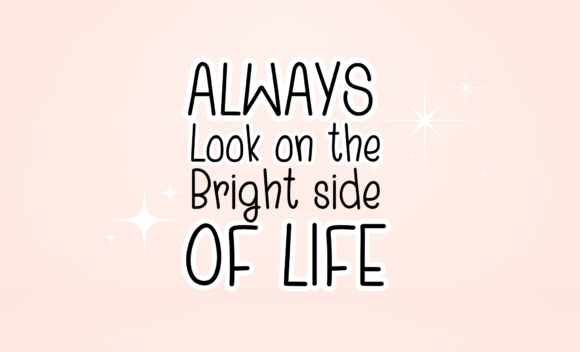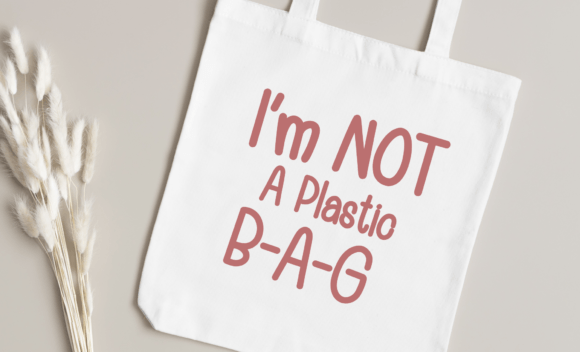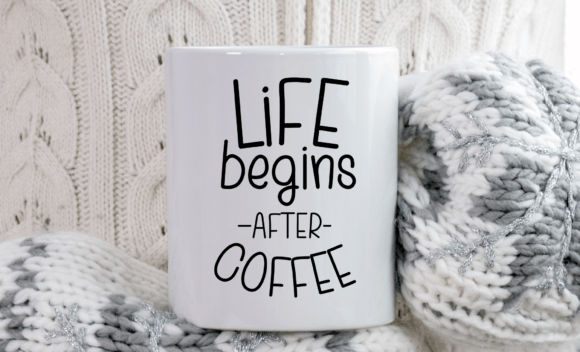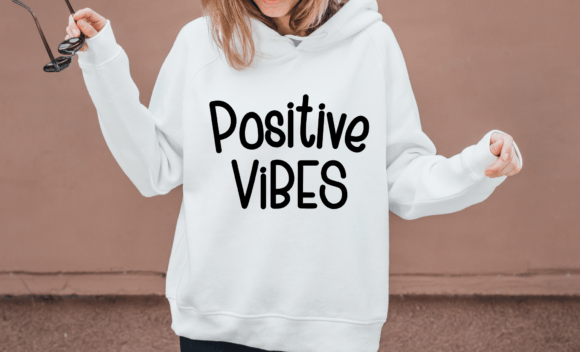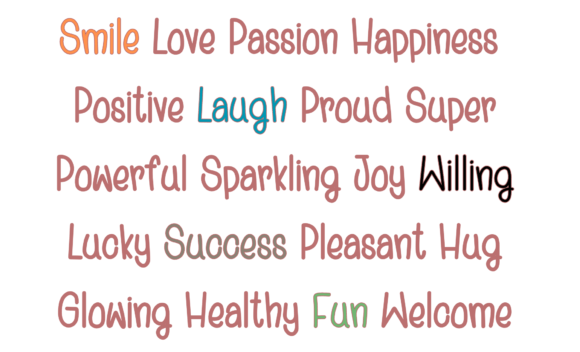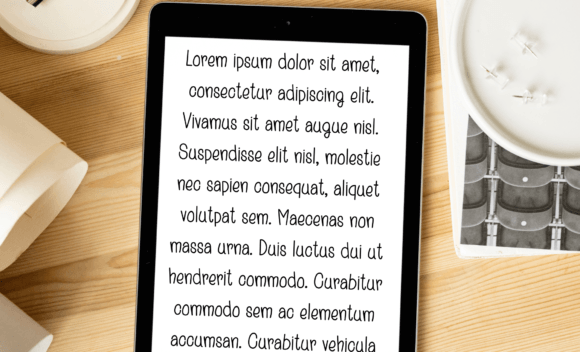
The Enchant Font: A Playful and Versatile Handwritten Delight
Ah, the elusive perfect font. You know, that one that makes your design project go from meh to mesmerizing. I recall working on a project for a children’s event, and I was determined to find a font that would capture the whimsical and playful essence of the brand. After hours of scrolling through font libraries, I stumbled upon Enchant – a handwritten font that instantly stole my heart. Its cute, playful, neat, and clean design made it an instant winner for my project, and I’m excited to share its charm with you.
An Honest Review of Enchant Font
What I Love About Enchant ✨
- ✅ Cute and Playful Design: Enchant’s handwritten style is perfect for designs that require a personal touch, making it ideal for digital prints, social media posts, and planners.
- ✅ Neat and Clean: Despite being handwritten, Enchant maintains a surprising level of legibility, even at smaller font sizes.
- ✅ Versatile: This font is suitable for a wide range of projects, from casual Instagram posts to more formal presentations.
- ✅ Easy to Read: The font’s clarity makes it perfect for body text, especially in digital formats.
- ⚠️ Limited Formality: Enchant’s playful nature might not be suitable for very formal or corporate designs.
- ⚠️ Glyph Limitations: While Enchant has a good range of characters, it might not support all special characters or languages.
The Backstory of Enchant Font
Enchant was created with the intention of capturing the whimsy and playfulness of handwritten text, while maintaining a level of neatness and legibility. The designer aimed to create a font that could be used in a variety of contexts, from digital media to print, and cater to designers, crafters, and hobbyists looking for that perfect, friendly touch.
| Font Name | Enchant Font |
| Author | LalavaStudio |
| Is Enchant suitable for body text? | Yes, Enchant is surprisingly legible and can be used for body text, especially in digital formats. |
| Does Enchant support OpenType features? | Yes, Enchant supports OpenType features, allowing for advanced typographic styling. |
| Is Enchant available in different weights or styles? | Enchant’s basic version might be limited, but some fonts in the Enchant family or similar fonts offer variations. |
Enchant font is a delightful addition to any designer’s toolkit, offering a unique blend of playfulness and legibility. Whether you’re creating digital content, crafting beautiful journals, or designing event materials, Enchant can add that special touch that makes your project stand out.